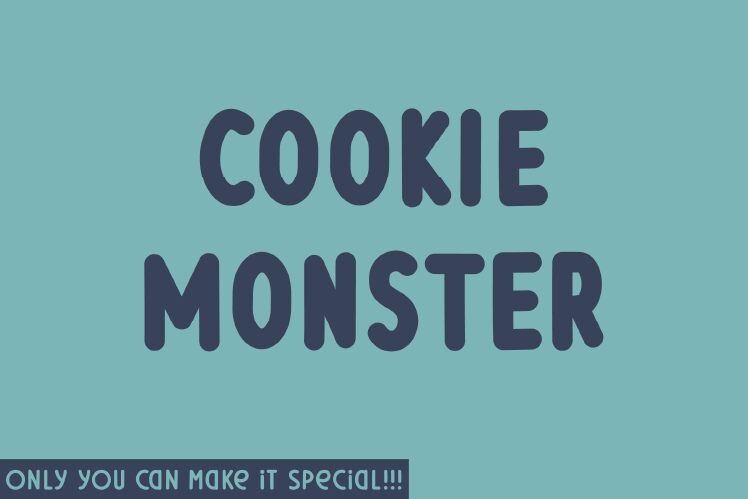
Cookie Monster font, designed by Hanna Bie of HannaBie Creative Studio, is a bold and condensed handwritten typeface that exudes charm and personality. Its playful curves and unique character offer a nostalgic, yet modern appeal that's perfect for eye-catching designs. The bold weight ensures visibility and impact, while the condensed style adds a touch of elegance without sacrificing readability.
Ideal for creative projects that require flair-such as posters, branding, or social media graphics-this free font is versatile yet distinctive. Designers can download Cookie Monster font to infuse their work with warmth and creativity, making it an excellent choice for both personal and commercial applications.